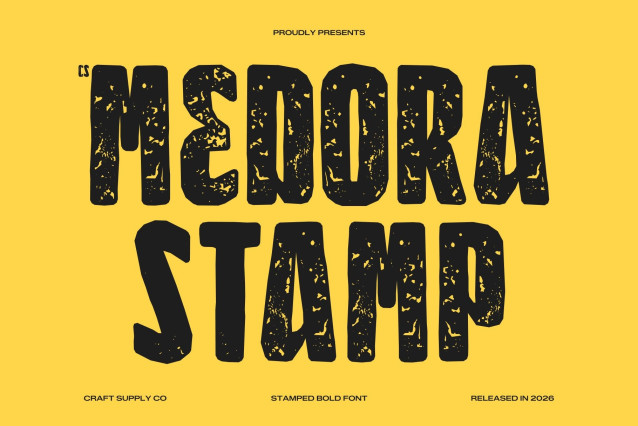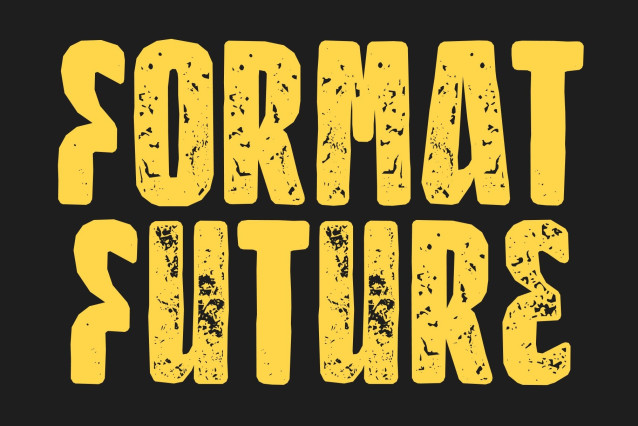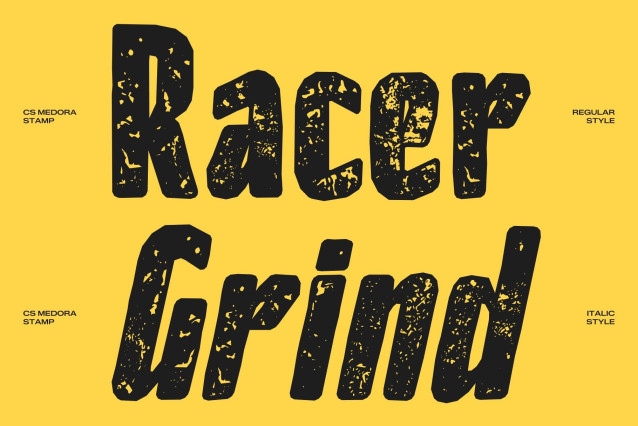
CS Medora Stamp Font
CS Medora Stamp – Bold Condensed Sans with Vintage Print Texture
Modern Condensed Design with Strong Presence
This is a bold condensed sans-serif font designed to deliver powerful visual impact in tight spaces. Its dense letterforms and narrow proportions create a commanding, confident appearance while maintaining excellent readability across both large and compact layouts. The added stamp texture introduces a subtle vintage print effect, giving the modern structure a distinctive handcrafted character.
Perfect for Headlines and High-Impact Displays
Built for attention-grabbing typography, this font excels in headlines, posters, advertising campaigns, and bold branding. The condensed construction allows more text to fit into limited space without losing clarity or visual strength, making it ideal for layouts that demand both efficiency and presence.